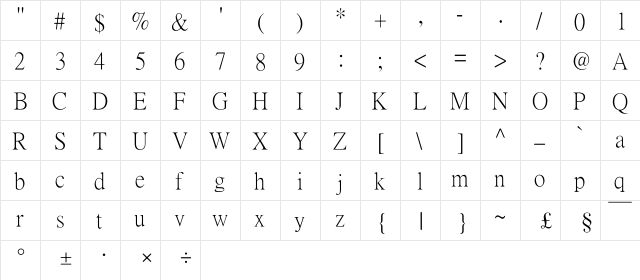
HanWangSinSongThin-Gb5 Gb5 Font Preview
HanWangSinSongThin-Gb5 Gb5
Design Context for HanWangSinSongThin-Gb5 Typeface
HanWangSinSongThin-Gb5 offers clean, dependable letterforms without strong stylistic allegiance, making it a practical choice for designers who need flexibility. The delicate stroke weight brings airiness and refinement to layouts.